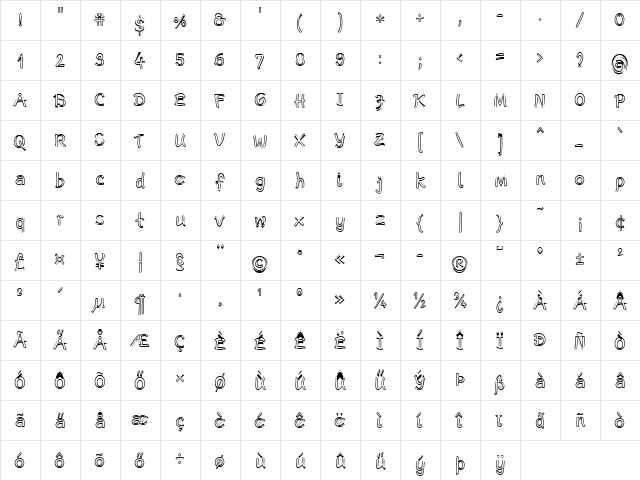
Escript LT NarrowOutline Regular Font Preview
Design Context for Escript LT NarrowOutline Typeface
Escript LT NarrowOutline brings a calligraphic fluidity to the page — its connecting strokes and expressive curves give it an unmistakably human quality. The delicate stroke weight brings airiness and refinement to layouts.
Font Pairing: Combine Escript LT NarrowOutline with a simple geometric sans for maximum contrast — the tension between flowing curves and clean structure is a classic typographic pairing.
Pro Tip: Pair Escript LT NarrowOutline with a clean sans-serif for supporting text. The contrast between fluid script and geometric structure creates an elegant typographic hierarchy.